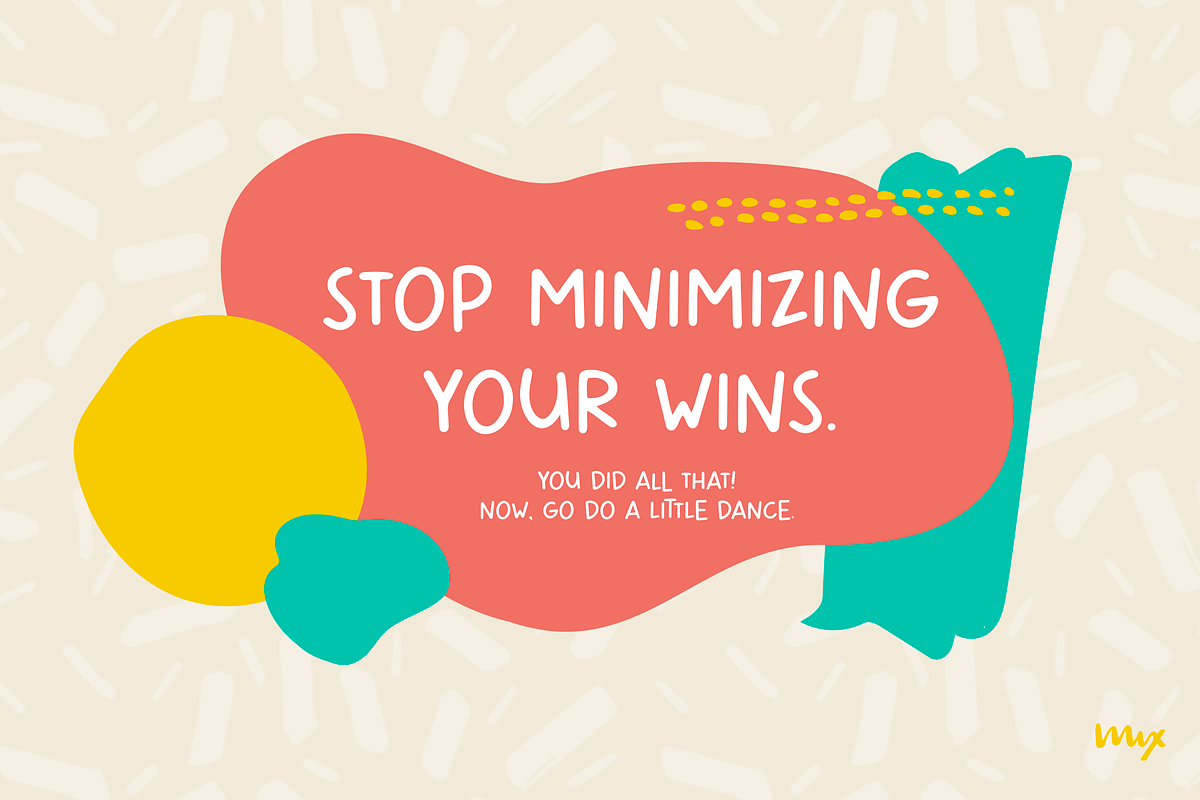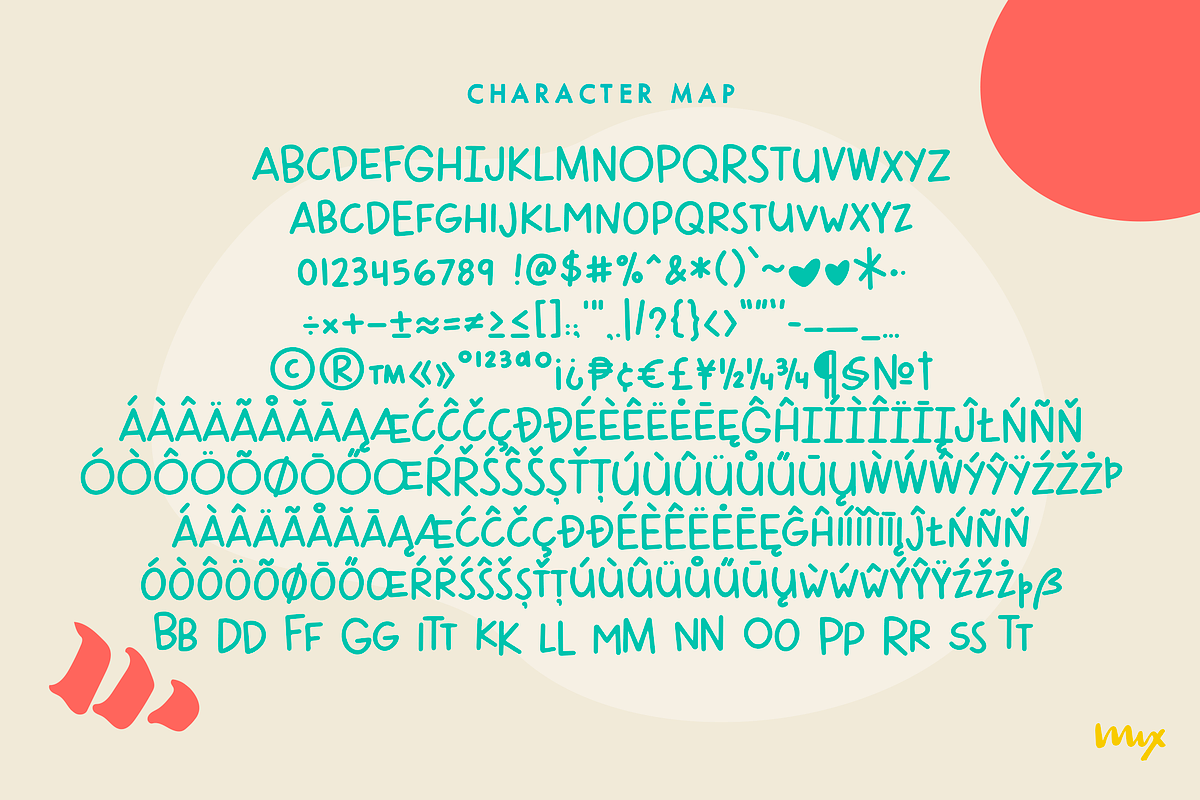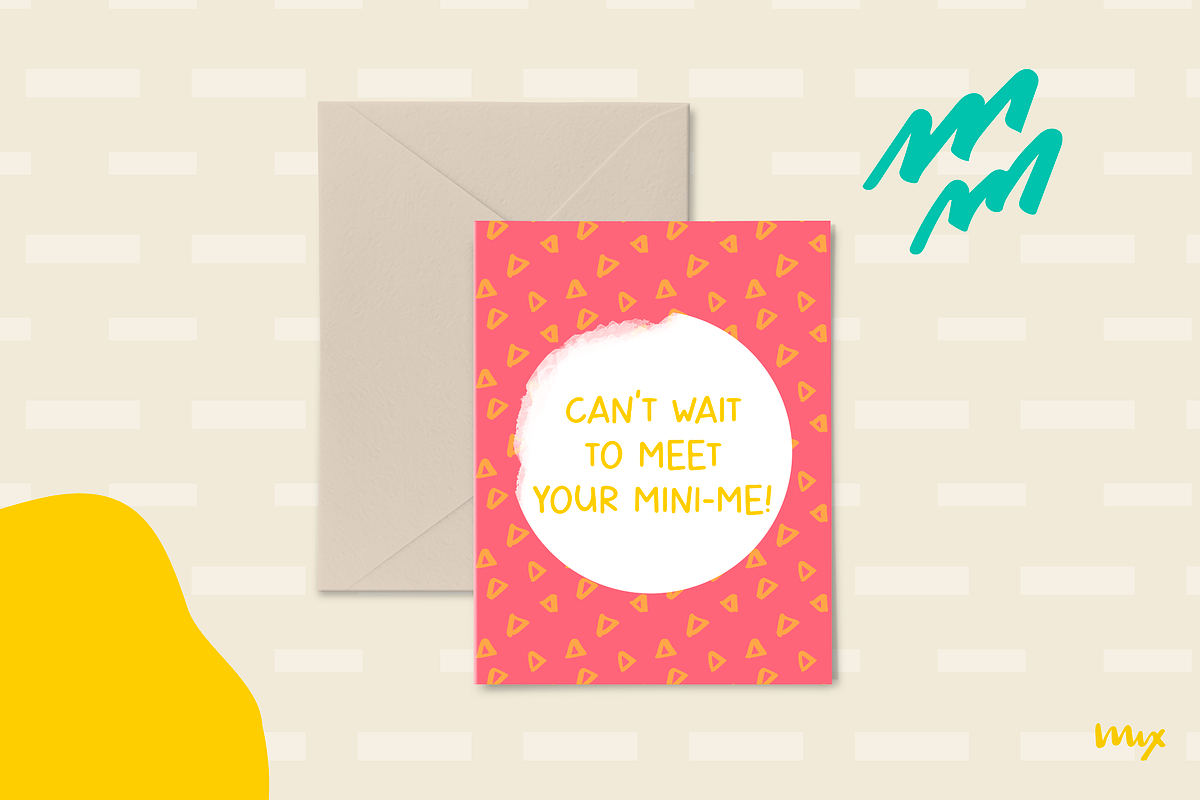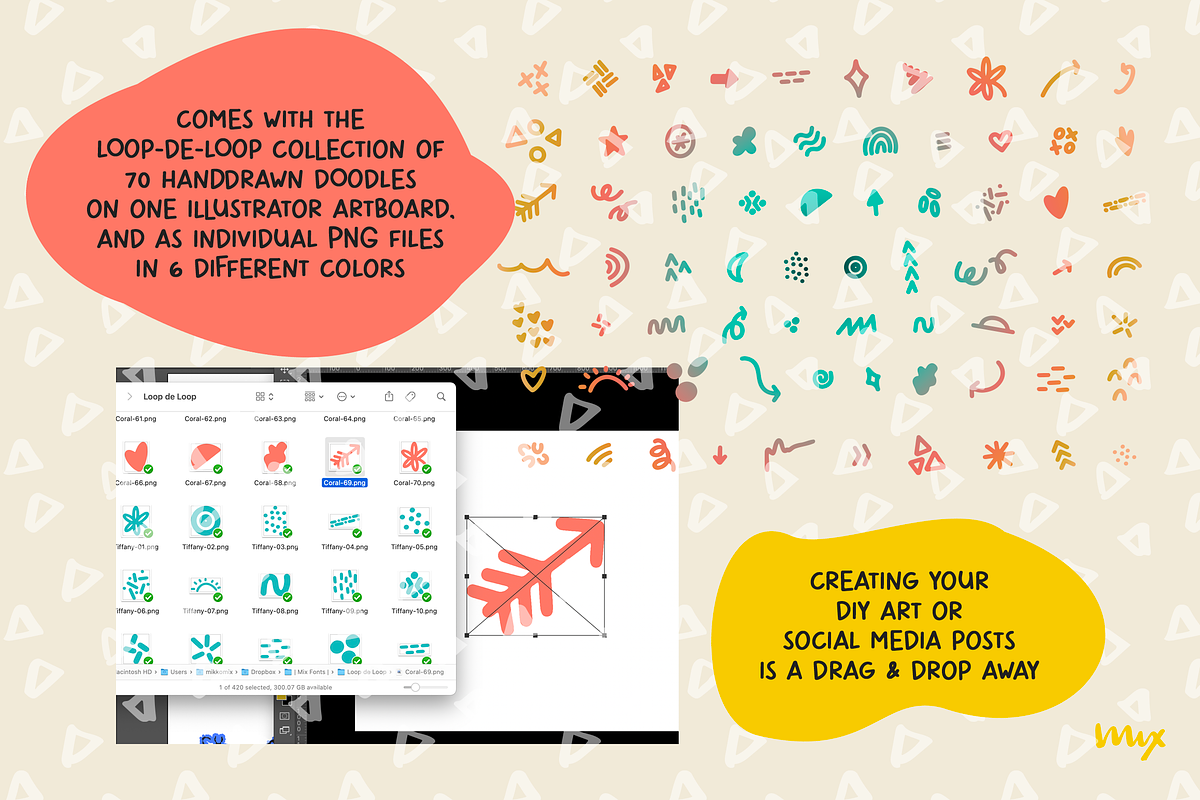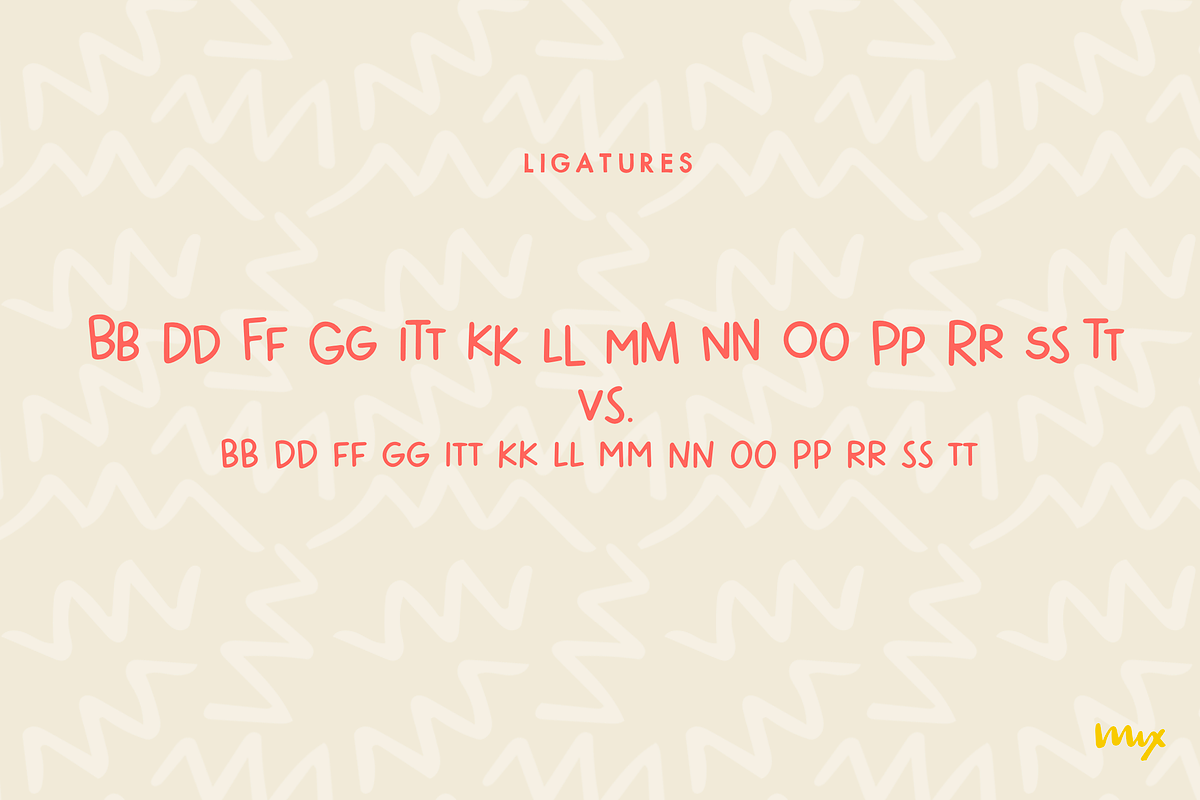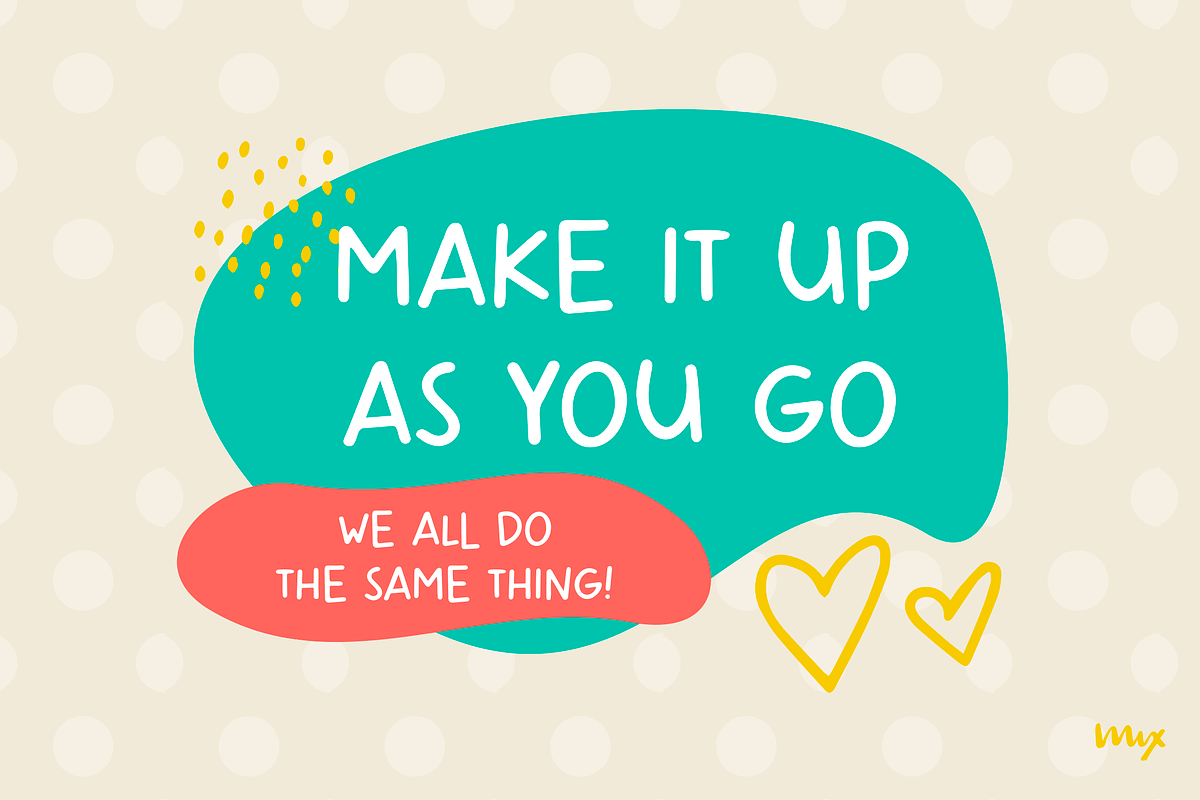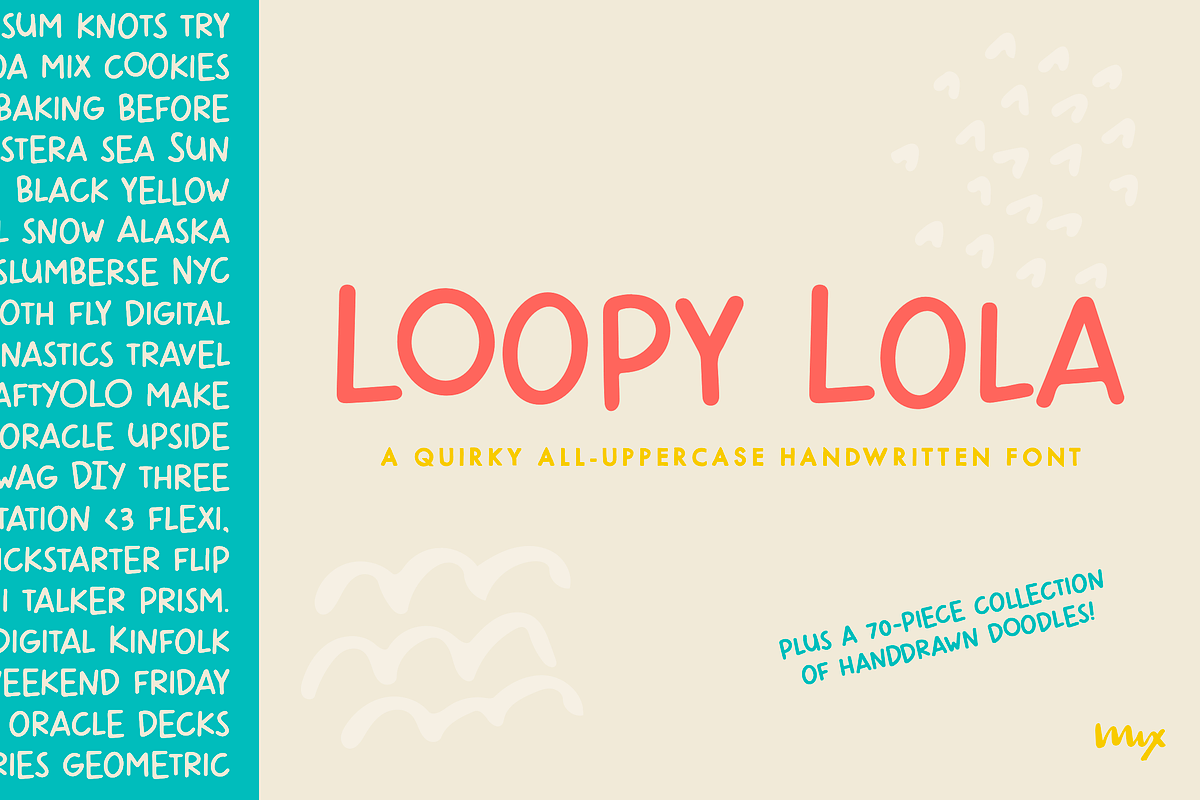
Loopy Lola — Font + 70 Doodles
Introducing MIX LOOPY LOLA, a fun and quirky all-uppercase handwritten font. This font is perfect for adding a playful touch to your designs, and will make any project stand out. It’s handdrawn, giving it an authentic and personal feel. You can use it for social media graphics, edgy posters, and bold headlines.
In addition to the font, we’ve included a set of loopy doodled elements that will add an extra touch of whimsy to your designs. These elements are unique and handdrawn, and they will give your art an authentic and personal touch. You can also buy the loopy doodles on their own.
MIX LOOPY LOLAcomes with an extended alphabet, accented characters, and several ligatures, so you can be even more creative and flexible in your designs. Use MIX LOOPY LOLA and the loopy doodles together to give your art that added bit of charm and character.
LIGATURES: bb dd ff gg itt kk ll mm nn oo pp rr ss tt